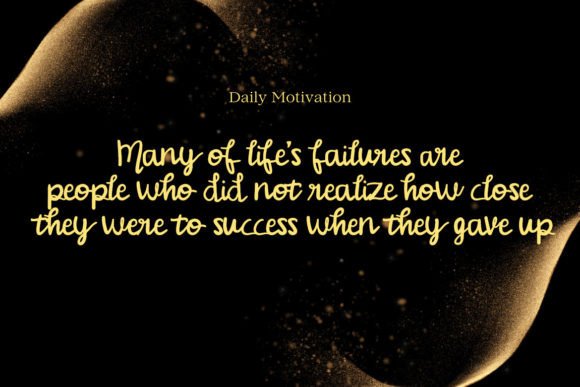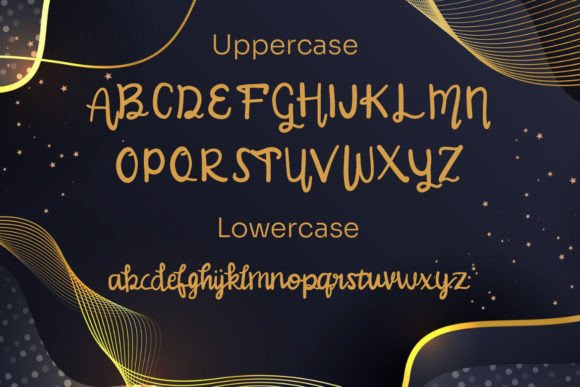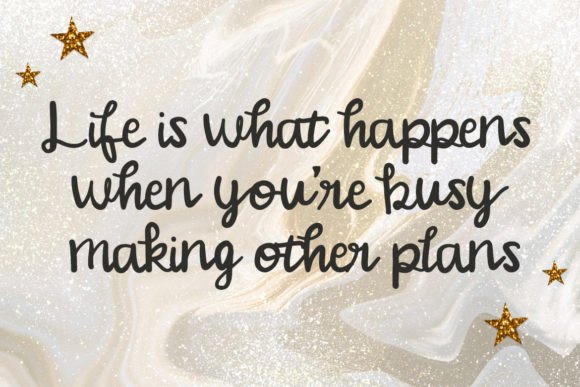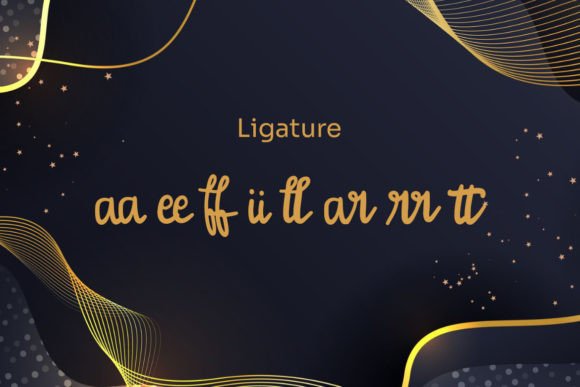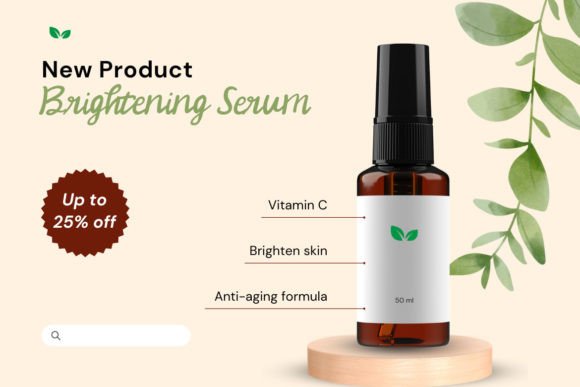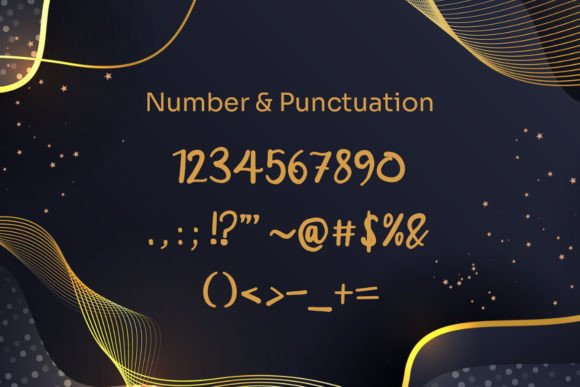
Introduction to Elliote Moiret Font
Elliote Moiret is a stunning script font, with delicate curves and elegant flourishes that exude sophistication and charm.
Its graceful strokes and stylish loops make it perfect for wedding invitations, luxury branding, and editorial designs This font is a timeless classic that will elevate any project to new heights of beauty and refinement.
Key Features of Elliote Moiret Font
Why Choose Elliote Moiret Font?
Elliote Moiret Font offers exceptional quality and versatility, making it a valuable addition to your design toolkit. Whether you’re creating for personal projects or commercial use, Elliote Moiret Font delivers professional results.